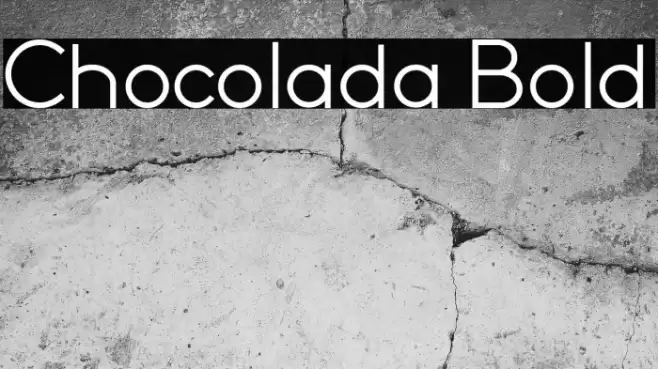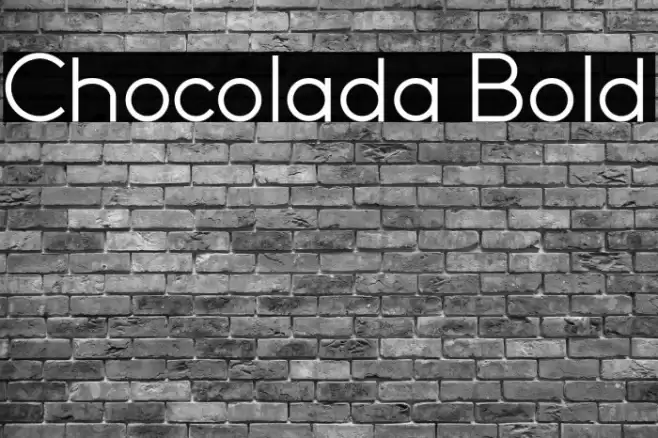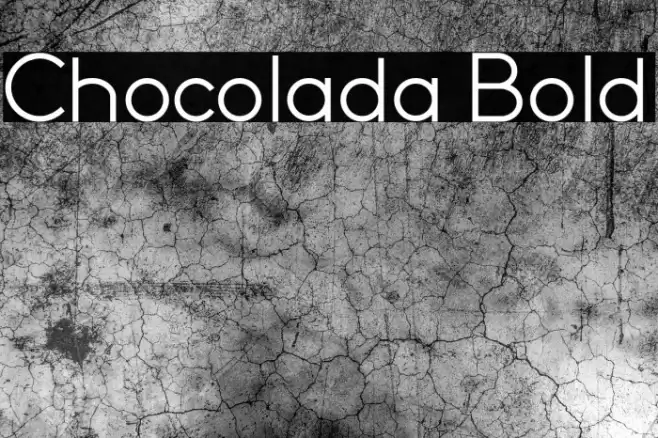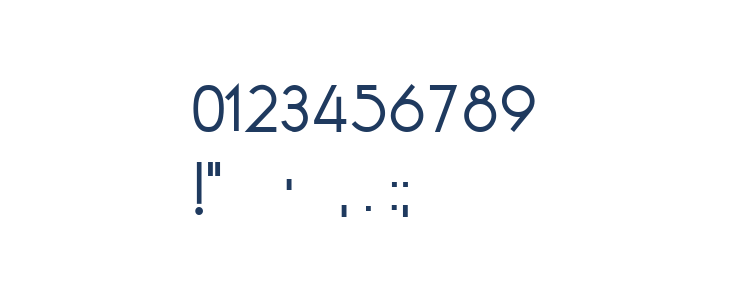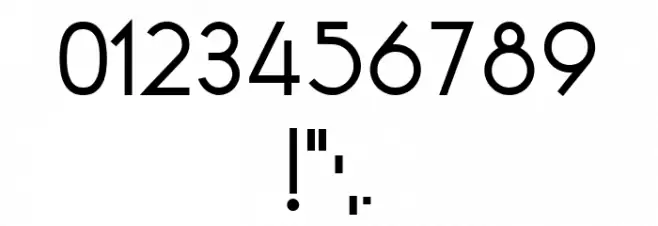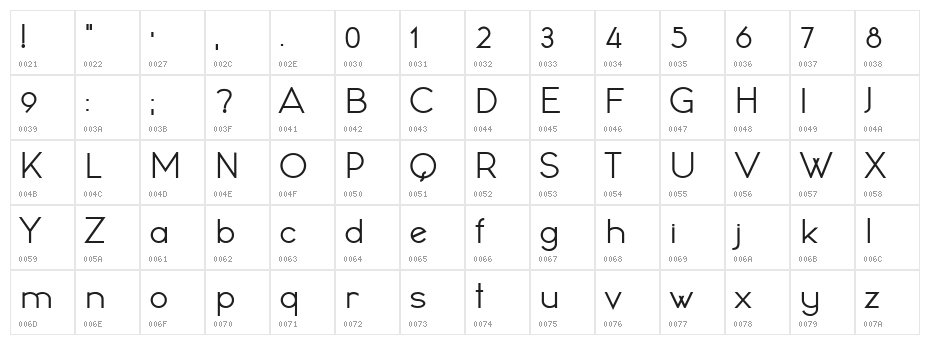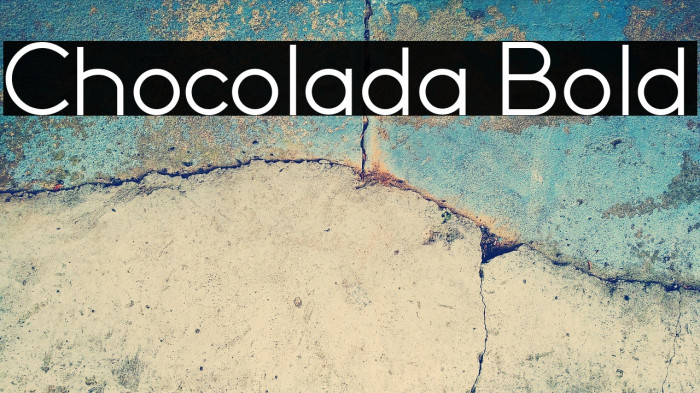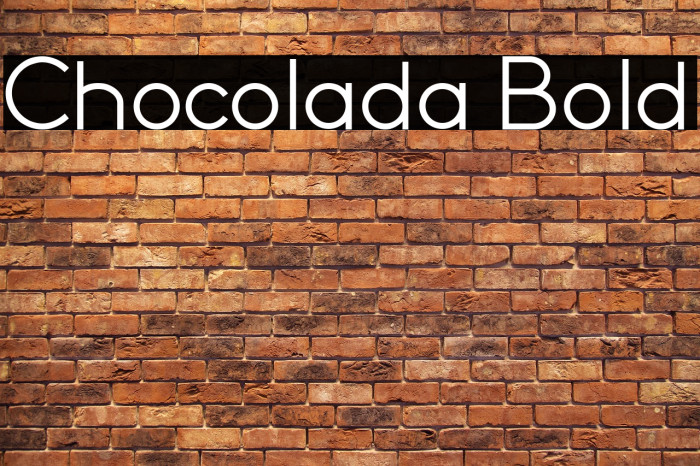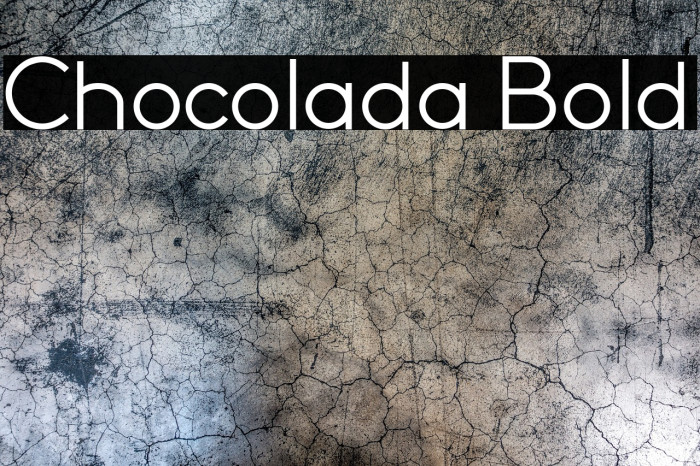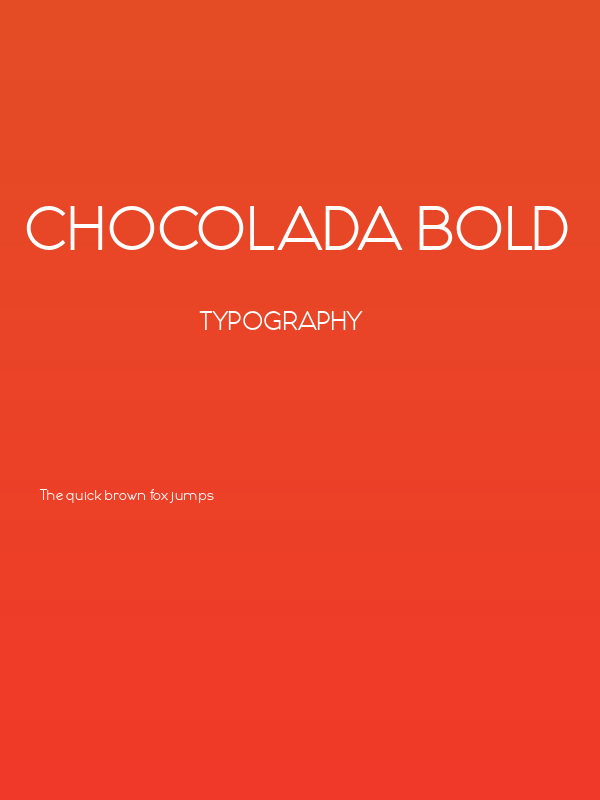
Chocolada Bold Font
Chocolada Bold Description
This font features a clean and modern sans-serif style with a bold weight, characterized by its geometric shapes and uniform stroke widths. The uppercase letters are tall and slightly condensed, providing a sleek and contemporary appearance. The lowercase letters maintain a consistent height and rounded forms, enhancing readability. The numerals are proportionate and align well with the overall design, while the special characters are simple and unobtrusive. This font's design is versatile, making it suitable for a variety of applications.
A bold, modern sans-serif font with geometric shapes and uniform strokes from Uncategorized fonts.
- Proposed Projects: Ideal for branding, advertising, headlines, and digital media projects requiring a modern and clean aesthetic.
- Use Case: Headlines, Logos, Branding